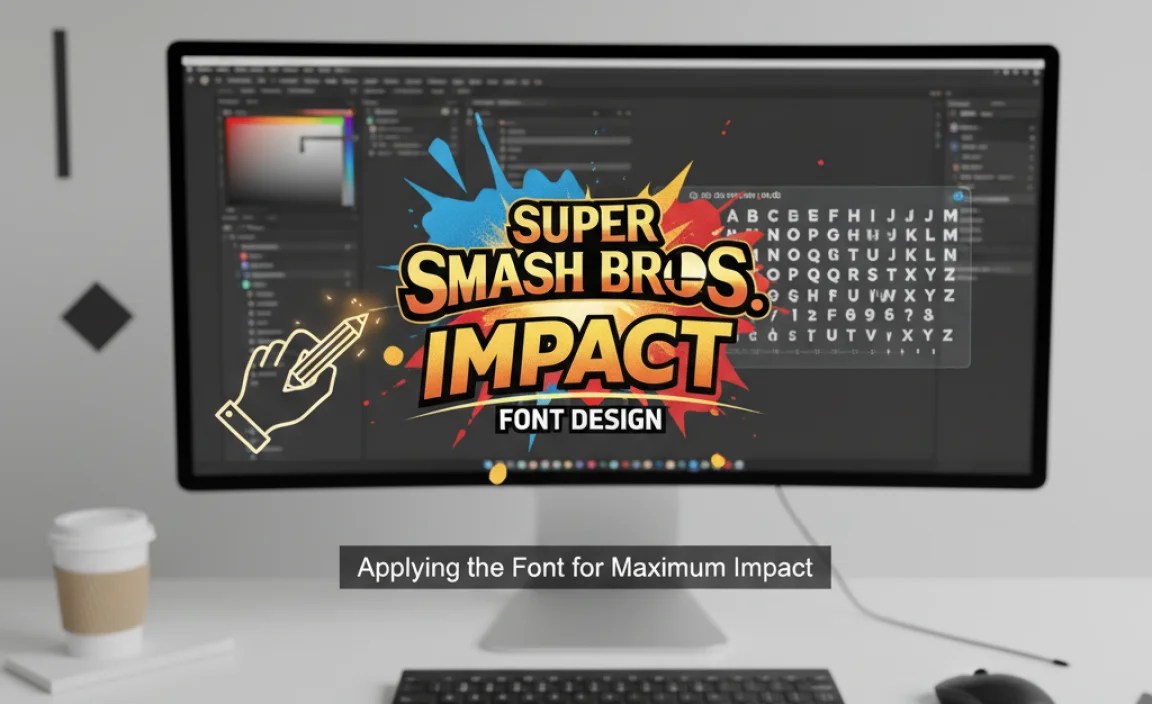
The “Smash Bros Splash Card Font” is the iconic typeface used on Super Smash Bros. game splash cards. While not a specific downloadable font, its style is characterized by bold, impactful, and often dynamic lettering. To replicate this look for your own designs, you’ll need to identify similar free or premium fonts that capture its energetic, gaming-inspired aesthetic.
Ever seen those vibrant splash cards from Super Smash Bros. and wondered about that punchy font? It’s one of those design elements that instantly screams “excitement” and “action.” If you’re looking to bring that same high-energy feel to your own projects, whether it’s a game mod, a social media graphic, or even a personal logo, you’re in the right place. Many beginners get stumped trying to find the exact font, but here’s a secret: it’s more about capturing the style than finding a perfect match. Let’s break down how you can achieve that awesome Smash Bros splash card look and feel for your designs!
Understanding the “Smash Bros Splash Card Font” Aesthetic
When we talk about the “Smash Bros Splash Card Font,” we’re not referring to a single, officially named typeface that you can download from a font website. Instead, it’s an idea, a collection of visual characteristics that define the look of the game’s title cards and character select screens. This aesthetic is all about impact, energy, and a distinct, somewhat retro-futuristic gaming vibe.
Key elements that define this style usually include:
- Boldness: The letters are thick and commanding, ensuring they grab immediate attention.
- Dynamic Angles: Many variations feature slightly slanted or angled letters, giving a sense of movement and speed.
- Sharp Edges: While some characters have rounded elements, the overall feel is often crisp rather than soft.
- Metallic or Gradiated Effects: In official art, these fonts are often embellished with metallic textures, glowing outlines, or vibrant gradients, though the base letterform is what we’re primarily focused on for font selection.
- Game-Centric Feel: The typography evokes the excitement and competitive spirit of video games, particularly fighting games.
Think of it as the visual equivalent of a powerful in-game move – it needs to be striking and memorable. Because the precise font used might vary slightly across different game iterations or marketing materials, focusing on these core characteristics is the most effective way to recreate the look.
Why Replicating the Style Matters
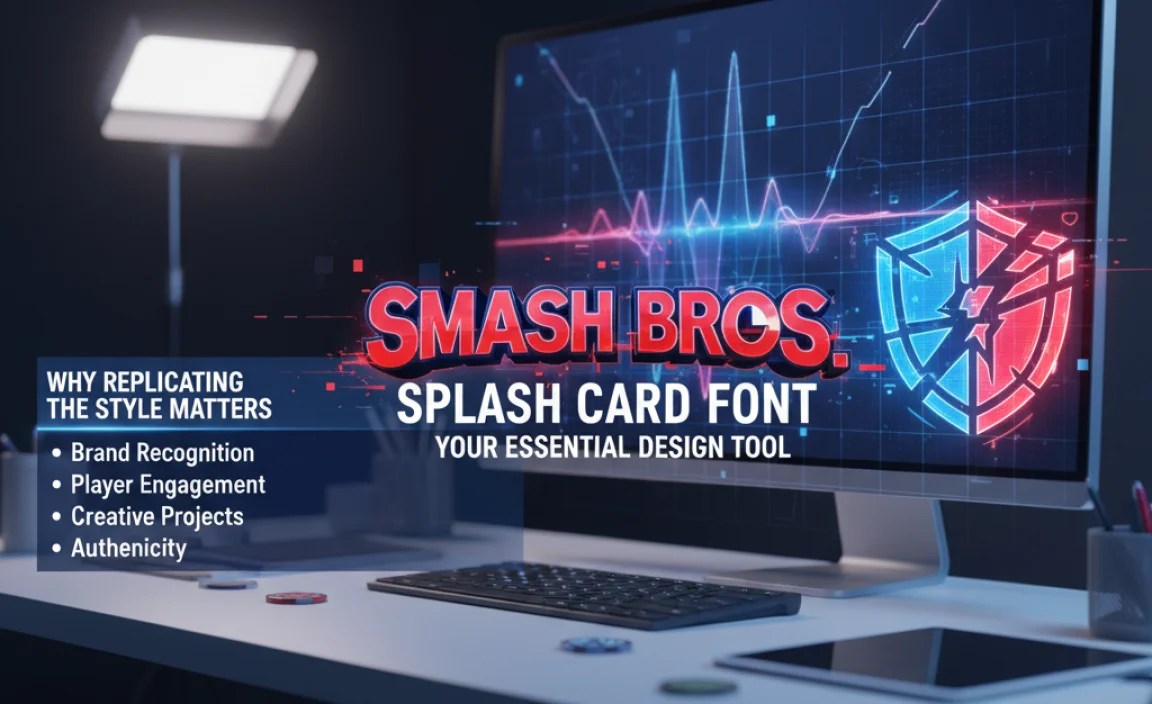
For designers, especially those working in gaming, fan communities, or even just creating promotional materials, understanding and replicating popular aesthetics is a valuable skill. The Smash Bros. style is recognizable and beloved for good reason. Its visual language conveys fun, competition, and a sense of epic battles. Being able to tap into this style can help you:
- Create Engaging Content: Your graphics will immediately feel energetic and professional to fans familiar with the series.
- Enhance Branding: If you’re building a brand around gaming, using inspired typography can solidify your identity.
- Develop Authentic Fan Art/Mods: For those creating unofficial content, matching the font style adds a layer of authenticity.
- Stand Out: A well-executed, Smash Bros.-inspired design can catch the eye in a crowded digital space.
However, the frustration often comes when people search for “Smash Bros font” and don’t find a single, perfect download. The solution, as we’ll explore, lies in understanding the essence of the design and finding fonts that share its DNA.
Finding Your “Smash Bros Splash Card Font” – A Step-by-Step Guide
Since there isn’t one official “Smash Bros Splash Card Font” to download, we need to approach this like a stylistic search. We’ll look for fonts that embody the core characteristics we identified. This involves understanding font categories and knowing where to look.
Step 1: Identify Key Font Characteristics
Before you start browsing, jot down the visual traits you’re aiming for. Based on our analysis, these are:
- Weight: Heavy, Bold, Black
- Style: Sans-serif (most common for this style), potentially with slightly condensed or extended proportions.
- Features: Strong, clean lines; possibly beveled edges or a sense of dimensionality. Should feel modern and impactful.
- Mood: Energetic, exciting, aggressive, heroic, sometimes a touch of sci-fi.
Step 2: Explore Font Categories
To find fonts that match, you’ll want to explore specific categories that often house such styles:
- Display Fonts: These are designed for large headlines and short bursts of text, perfect for impact.
- Slab Serif Fonts: While often associated with a more classic feel, modern slab serifs can be very bold and geometric, sometimes matching the impactful look.
- Geometric Sans-Serifs: Fonts built on simple geometric shapes (circles, squares) can offer the clean, bold lines you’re looking for.
- Sports / Action Fonts: Many typefaces designed for sports branding share the boldness and dynamic qualities needed.
Capturing the iconic “Smash Bros Splash Card Font” style is absolutely achievable, even without a direct download. By understanding the core visual traits – boldness, dynamism, and an energetic gaming feel – you can confidently select and apply fonts that evoke that same excitement. Whether you opt for free, readily available sans-serifs or invest in premium display fonts, the key is experimentation. Play with weights, colors, gradients, and outlines in your favorite design software. Remember to always respect font licensing, especially for commercial ventures. With these tools